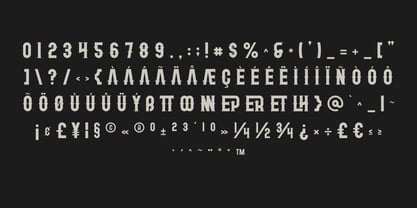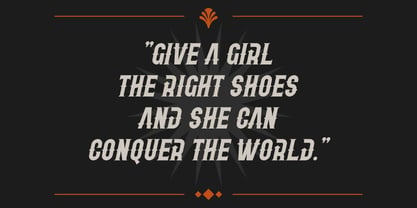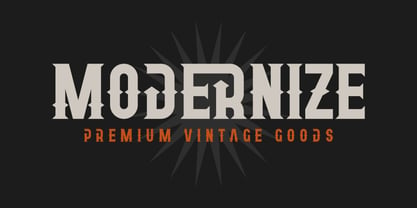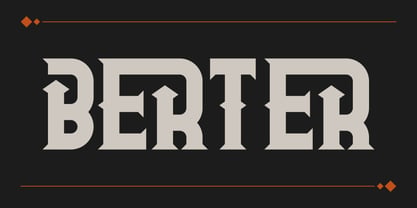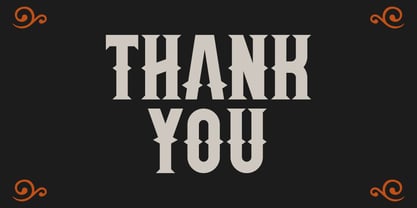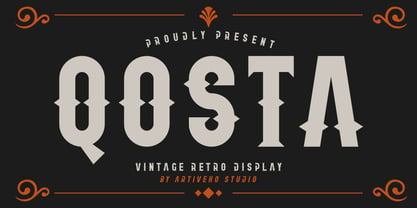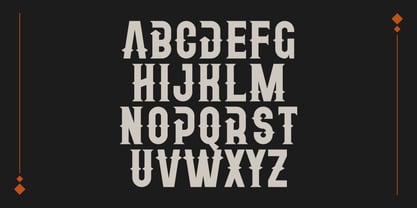
Qosta
La familia tipográfica Qosta fue diseñada por Iwan Alwan y publicada por Artiveko. Qosta contiene 2 estilos y opciones de paquete familiar. Más información sobre esta familia
Qosta is a vintage retro display typeface designed to embody the timeless charm of classic typography. Featuring bold character shapes and nostalgic styling, Qosta infuses modern creative projects with an old-school energy. This typeface is perfect for a variety of applications, including posters, logos, branding, signage, packaging, merchandise, and editorial design, creating standout visuals with authentic retro appeal. Its distinctive display structure is particularly suited for large headlines and branding applications where personality is paramount. Whether you're crafting vintage-inspired labels, heritage branding, or retro promotional materials, Qosta delivers warmth, character, and a timeless style. More than just a font, Qosta represents a retro revival for bold creative expression.
Diseñadores: Iwan Alwan
Fundición: Artiveko